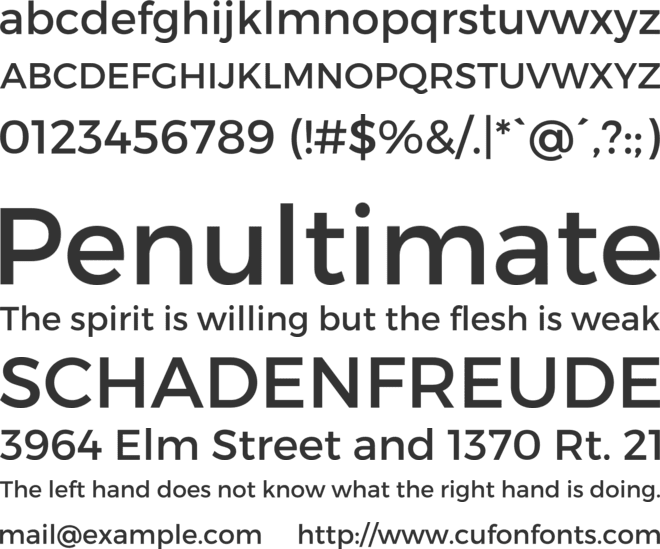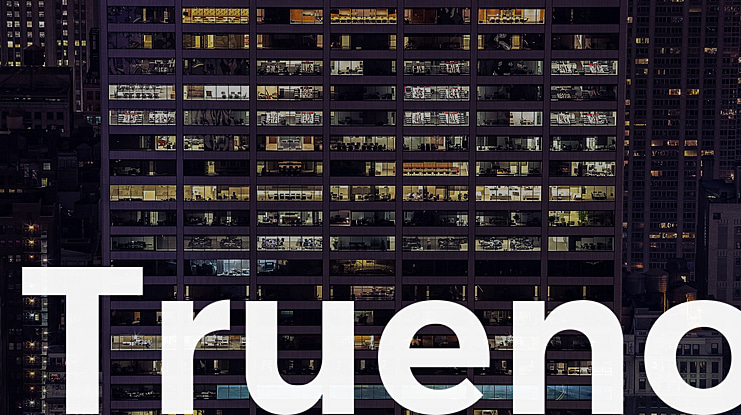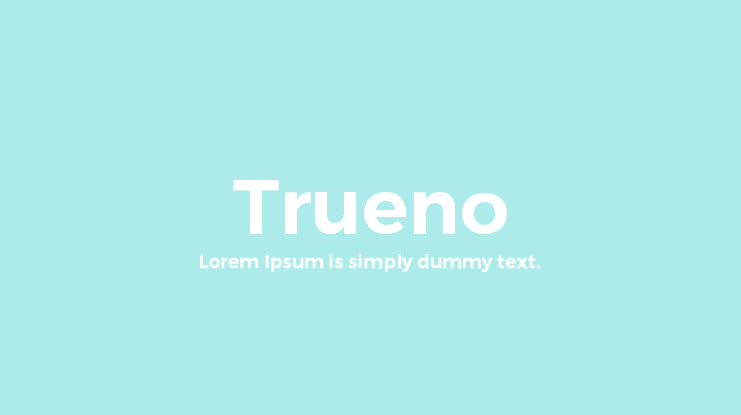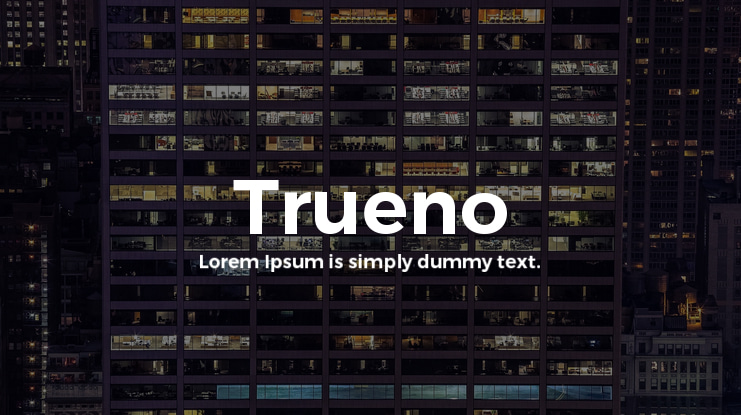
Trueno Font Family
This is a Fork from the Open Source font, Montserrat, licensed under the SIL Open Font License, with several new styles.
Forked by our newest designer, Jasper.